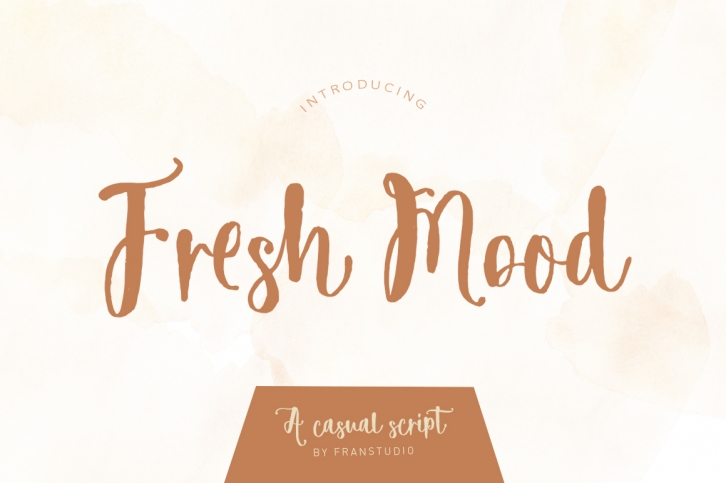
Fresh Mood is a great font that was designed by Franstudio. Imagine the amount of combinations you can create using this font! The archive is 13.58 MB and it was released on August 31, 2019. Fresh Mood looks beautiful on wedding invitations, greeting cards, logos, posters, labels, t-shirt designs, logos, business cards and is perfect for use in ink or watercolor works, fashion, magazines, packaging and food menus, children's books and more!